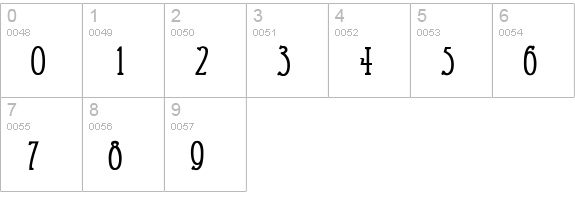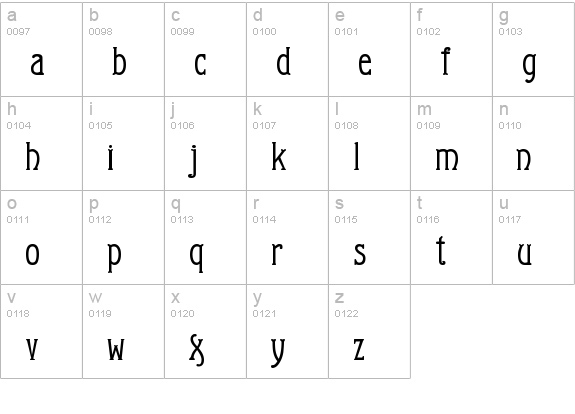
Arkhive Font Details
A modern and sleek typeface, Arkhive is the perfect choice for designers seeking a sophisticated and contemporary look for their projects. With its clean lines and sharp edges, Arkhive exudes a sense of professionalism and elegance. This versatile font is ideal for a wide range of design applications, from branding to editorial design. What sets Arkhive apart is not only its striking visual appearance but also the fact that it is available for free download at FontsMarket.com. Designers can easily access this high-quality font without any cost, making it a valuable addition to their design toolkit. Whether used for print or digital projects, Arkhive delivers a polished and refined aesthetic that is sure to captivate audiences. Embrace the power of Arkhive and elevate your designs with this exceptional font that combines style, sophistication, and accessibility. Download Arkhive for free today and discover the endless creative possibilities it offers.